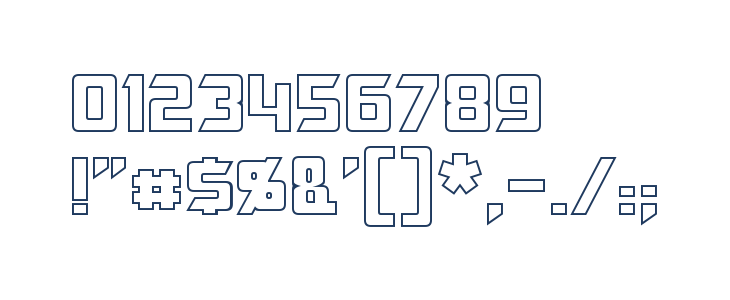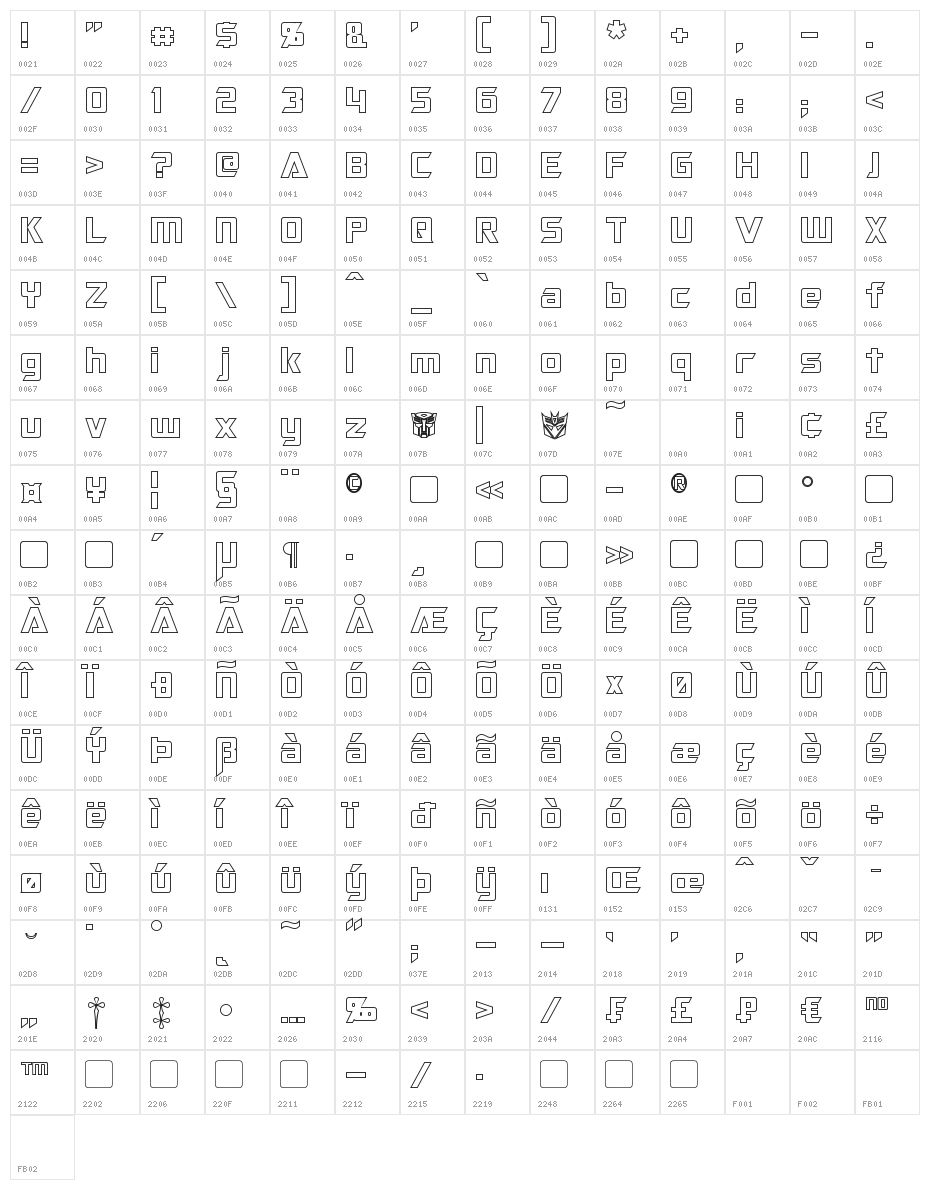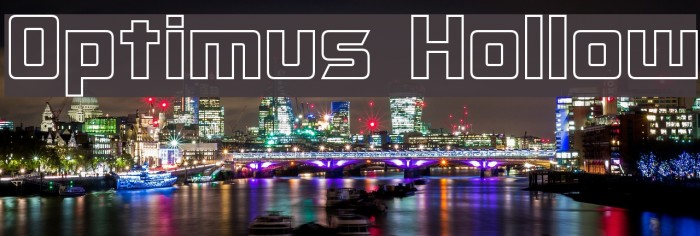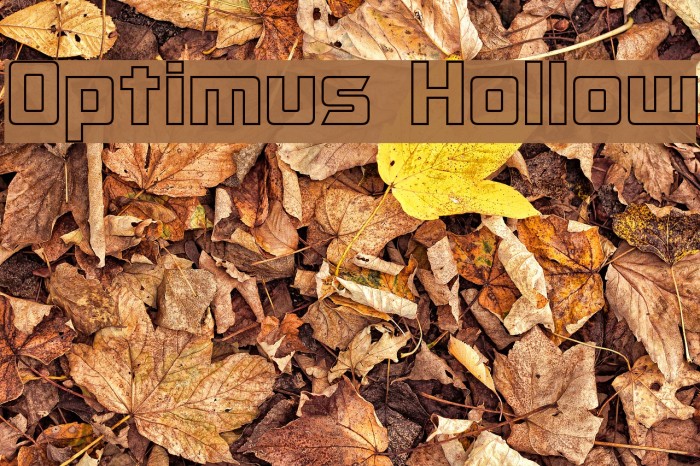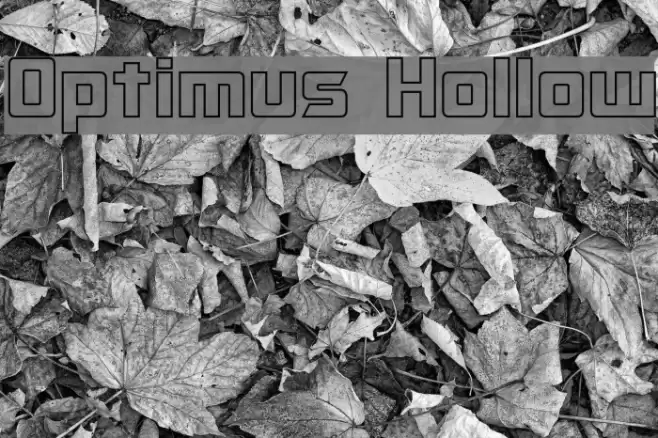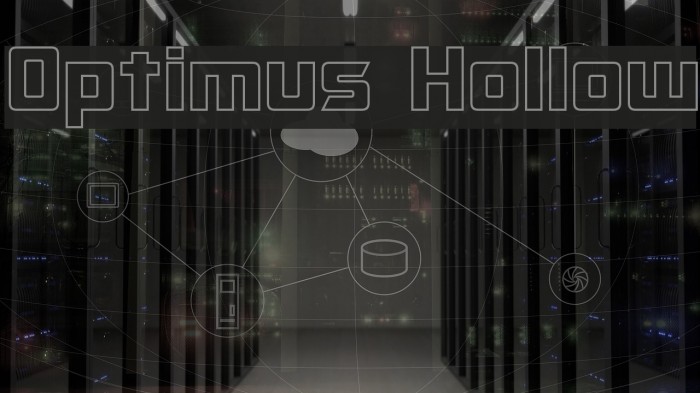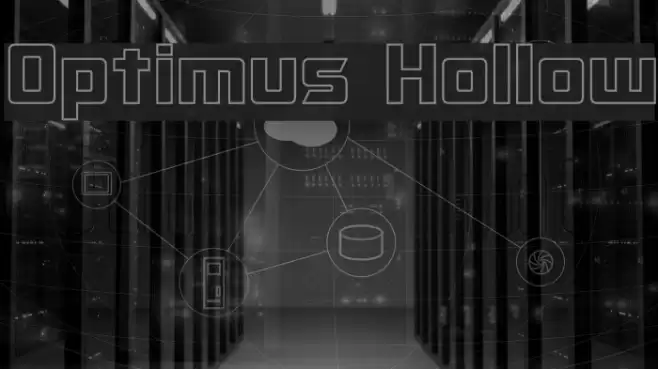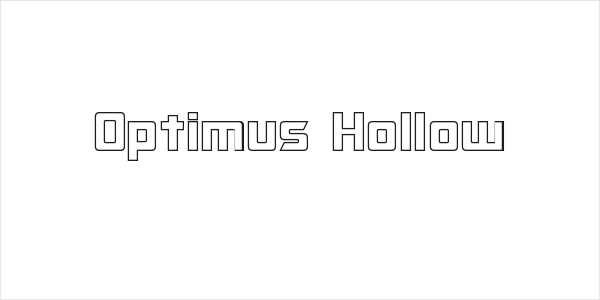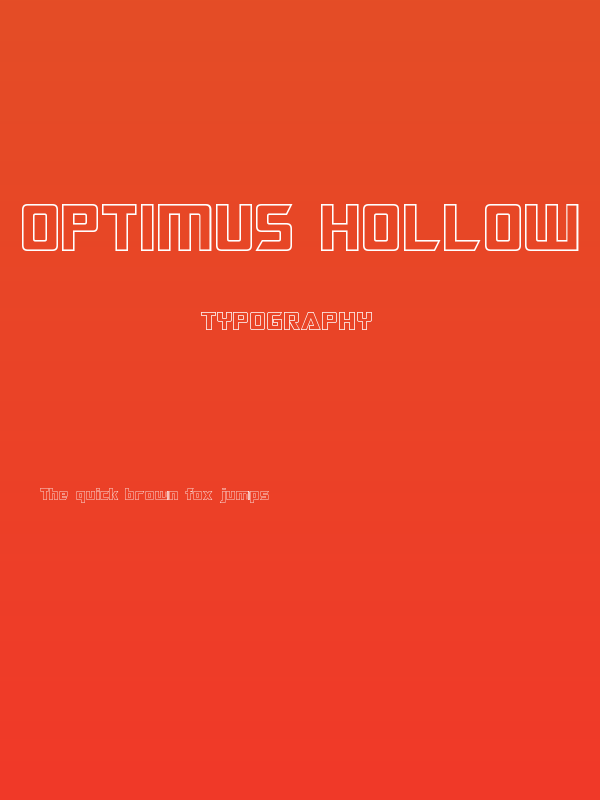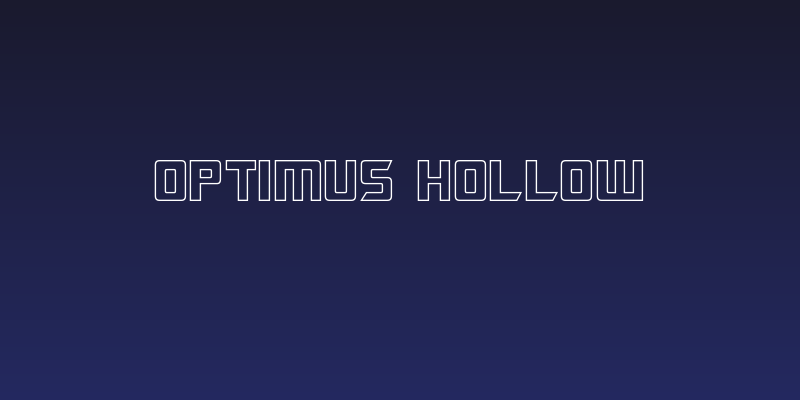
Optimus Hollow Font
Optimus Hollow Description
This font features a bold, geometric design with a hollow interior, giving it a futuristic and industrial appearance. The characters are constructed with straight lines and sharp angles, creating a sense of precision and modernity. The uppercase and lowercase letters maintain a consistent style, with the uppercase being slightly more angular. The numerals and special characters follow the same design principles, ensuring uniformity across all glyphs. The hollow nature of the font adds a unique dimension, making it stand out in various design contexts.
Proposed ProjectsIdeal for technology branding, sci-fi themed projects, posters, and modern logos.